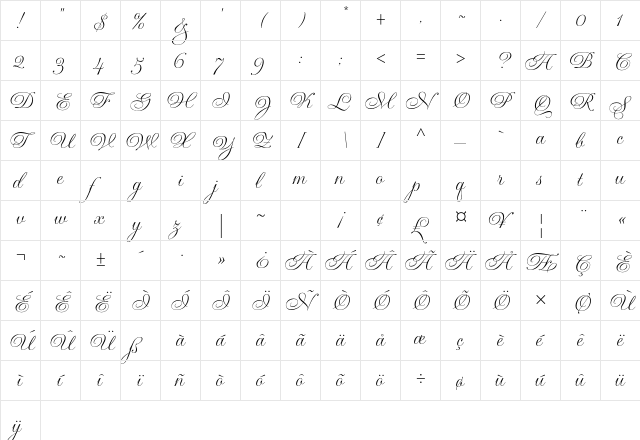
Gravura Std Regular
| Designer | Phill Grimshaw |
Design Context for Gravura Std Typeface
Gravura Std is a composed and adaptable typeface that performs quietly and consistently across a wide range of design contexts.